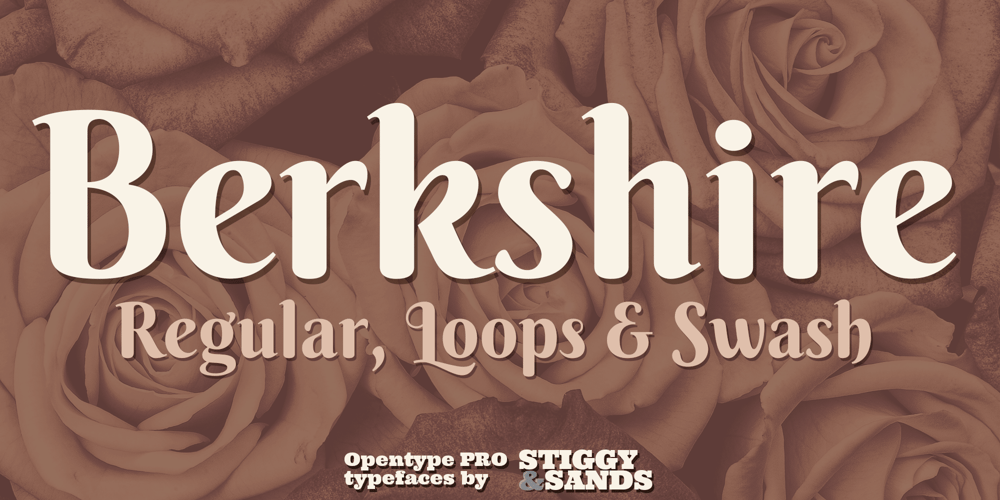
Berkshire Pro Font Family was designed by Jim Lyles, Brian J. Bonislawsky and published by Stiggy & Sands. Berkshire Pro contains 3 styles and family package options. This family began with Berkshire Swash Pro, an alluring semi-sweet typestyle with a bold yet feminine flair to it. This was always meant to be a trio family, complete with Regular, Loops, and Swash Pro styles.See the last graphics for a comprehensive character map preview.Opentype features include: A collection of ligatures. Smallcaps. Full set of Inferiors and Superiors for limitless fractions. Tabular, Proportional figures for Berkshire Pro, and Oldstyle figure sets for Loops & Swash Pro.